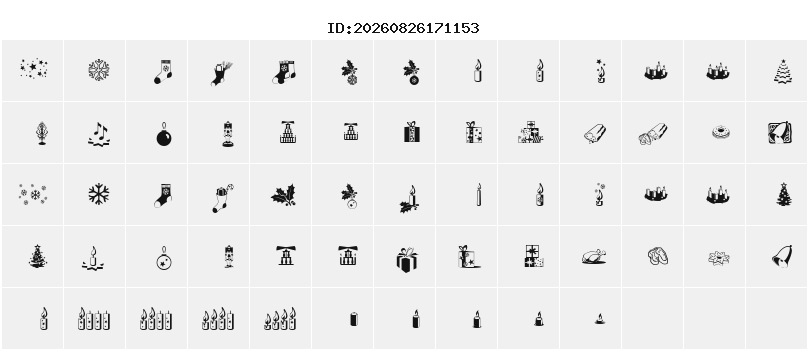
Xmas Essentials Preview
• Font Name: Xmas Essentials
• Designer: Fuenfwerken Design AG
• Manufacturer: Linotype GmbH
• Description: Ravishingly friendly and universally applicable: the Xmas Family. Bringing variety to the dry Christmas card genre, these fonts can also be used on posters to spread holiday cheer at home. No limits are placed on your creativity here! The family has three different fonts, each with more than 60 symbols inside: Xmas Story includes the whole figure palette necessary for a classical Christmas story. From a cute little Baby Jesus to the Three Wise Men and wooly Aramaic sheep, and everything that one needs to add special flair to a letter to grandma, or to set up a Nativity Scene at home for the kids is included. Customers who aren't searching for a biblical font should check out Xmas Essentials. This font contains typical non-denominational end-of-the-year holiday ornaments, such as snowflakes, decorated Christmas trees, nutcrackers, and stars. Last but not least is the Xmas Modern font. Just as global warming poses severe risks to snowmen, this font will make recipients of your holiday and New Year's cards melt. Glyphs such as Santa Claus riding on a Vespa - complete with iPod - speed away from normal, stuffy holiday seriousness, and signal that the Fun Generation has arrived!